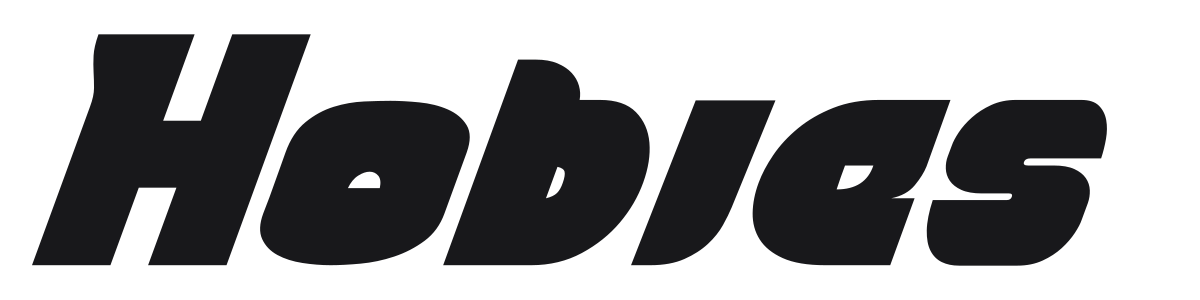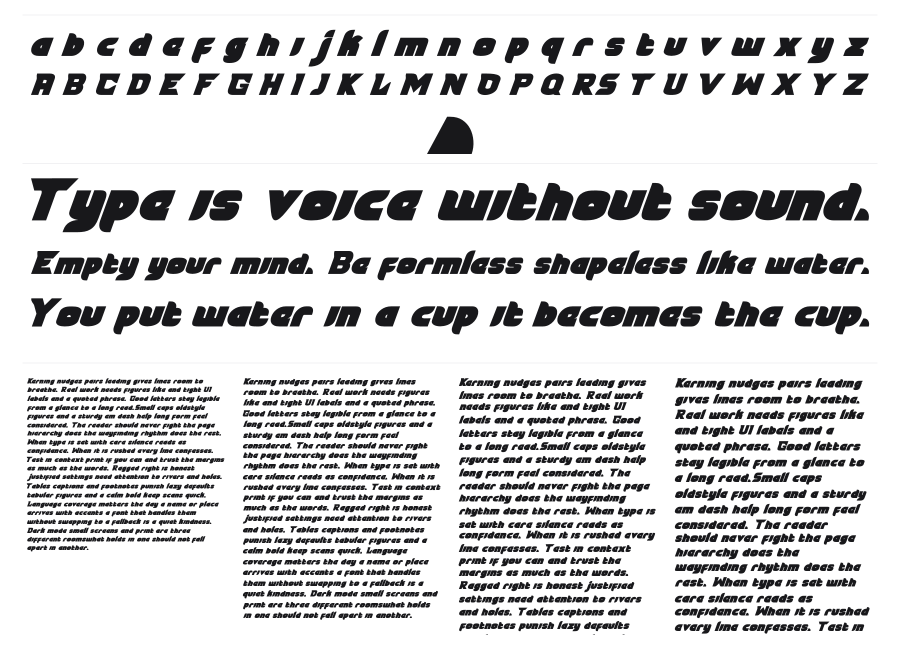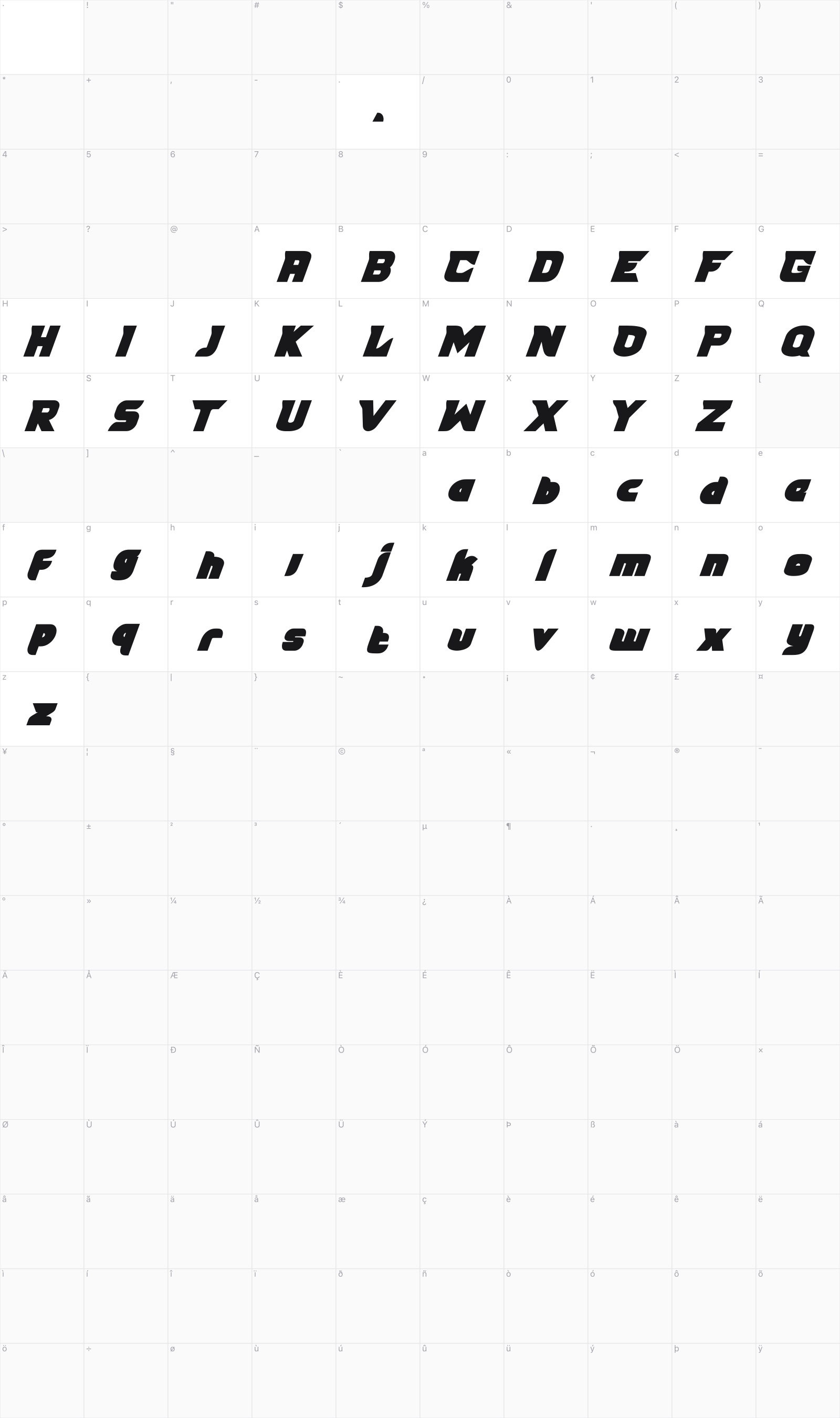
Hobies
Hobies is a heavy italic rounded sans with a thick, inflated construction and a strong forward lean. The ultra-bold strokes and soft rounded terminals pull it straight into 1970s display territory. It carries a sense of speed and pop energy that works well for headlines, posters, and anything that needs attitude.